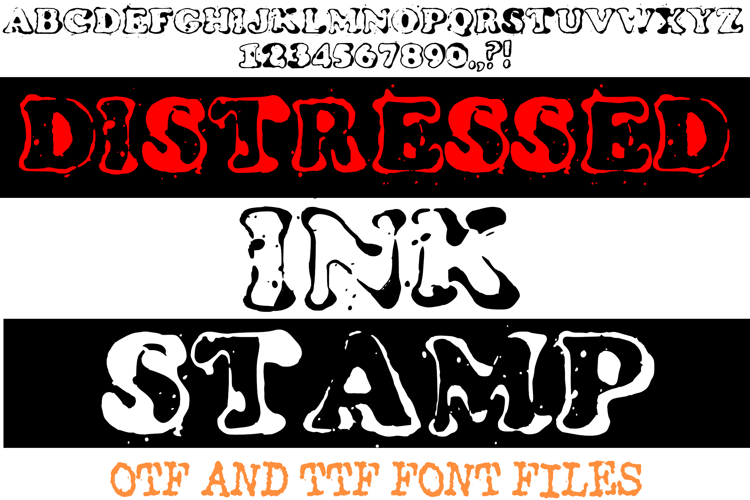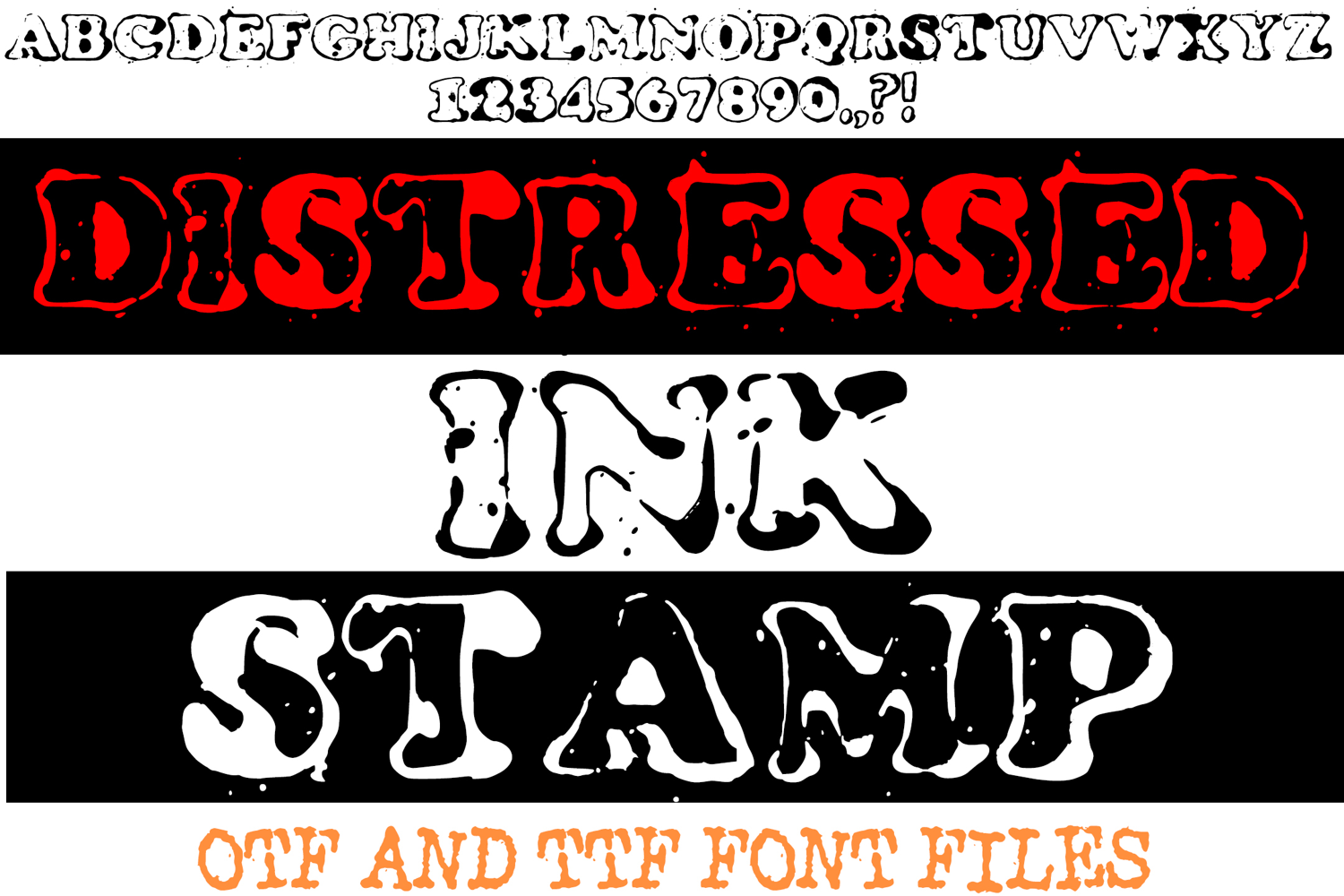
Distressed Ink Stamp Font Vintage Typeface Bold Handmade
Add an unmistakable analog grit to your digital work with Distressed Ink Stamp, a bold display typeface that celebrates the imperfections of manual printing. This font was handmade using authentic vintage stamps and real ink to ensure a texture that feels heavy, raw, and completely original.
The design captures the high-pressure transfer of a physical stamp, resulting in massive ink density and beautifully irregular edges. Every letter is packed with character, featuring natural "inky" splatters, bleeding silhouettes, and the grainy distress found only in traditional letterpress work. Whether you need a subtle vintage touch or a high-impact headline, this font brings the soul of the print shop to your screen.